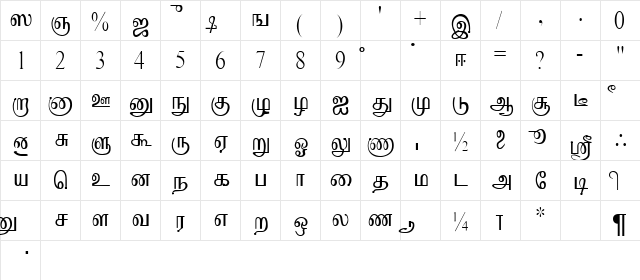
Kruti Tamil 010 Regular
Design Context for Kruti Tamil 010 Typeface
Kruti Tamil 010 is a composed and adaptable typeface that performs quietly and consistently across a wide range of design contexts.